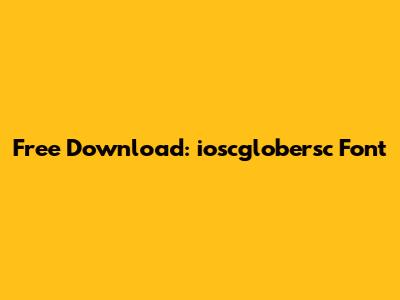
Free Download: Ioscglobersc Font
Hey guys! Today, we're diving into the awesome world of typography, specifically focusing on the ioscglobersc font free download. If you're on the hunt for a cool, modern typeface that can seriously amp up your designs, then you've come to the right place. This font is a real gem, offering a clean and versatile aesthetic that works across a multitude of projects. Whether you're designing a website, crafting a social media graphic, or even working on a print publication, having a reliable and stylish font like ioscglobersc in your toolkit is a game-changer. Let's get this party started and explore why this font is such a popular choice and how you can snag it for your next creative endeavor. We'll cover everything you need to know, from its design characteristics to where you can actually download it for free.
Why Choose ioscglobersc Font?
So, what makes the ioscglobersc font free download so special, you ask? Well, it all boils down to its fantastic design. This typeface strikes a perfect balance between geometric precision and a friendly, approachable feel. It's inspired by classic sans-serif fonts but brings its own unique flair to the table, making it feel fresh and contemporary. The characters are well-spaced, legible, and possess a certain elegance that can elevate any text. Think of it as the little black dress of fonts – it's versatile, always in style, and pairs well with pretty much anything. Its clean lines and open counters ensure readability even at smaller sizes, which is a huge plus for web design and mobile interfaces. Plus, the range of weights often available with this font family means you can create strong visual hierarchies, using different styles for headlines, subheadings, and body text. This consistency and flexibility are what make designers come back to it again and again. It’s not just about looking good; it’s about performing well across different media and ensuring your message comes across loud and clear.
Tips for Using ioscglobersc Effectively
Once you’ve got the ioscglobersc font free download sorted, the next step is to use it like a pro! How you implement this font can make all the difference. For web design, its clean and readable nature makes it perfect for body text, ensuring your visitors can easily consume your content. For headlines and titles, consider using a bolder weight of ioscglobersc to make them pop. The geometric construction of the font lends itself well to minimalist and modern designs. Pair it with simple color palettes and plenty of white space to let the typography shine. If you're designing logos, a carefully chosen weight of ioscglobersc can convey professionalism and clarity. Avoid using too many different weights or styles of the font within a single design; stick to two or three variations at most to maintain a cohesive look. Remember, less is often more when it comes to typography. Experiment with different sizes and letter spacing (kerning) to fine-tune the appearance. For print materials like flyers or posters, ioscglobersc can be a fantastic choice for its legibility and modern appeal. Just ensure you’re using high-resolution files when preparing your print designs. Always preview your text with the font applied before finalizing your project. This simple step can catch subtle issues and ensure the overall aesthetic is exactly what you envisioned. Guys, don't be afraid to play around with it – that's how you discover its full potential!
Alternatives and Similar Fonts
While the ioscglobersc font free download is fantastic, it's always good to have a few backup options or similar fonts in your arsenal. Sometimes, you might need a font with a slightly different character, or perhaps you want to see how ioscglobersc stacks up against its peers. If you love the clean, geometric sans-serif vibe of ioscglobersc, you might also want to check out fonts like Montserrat, Lato, Open Sans, or Raleway. These are all popular, highly versatile, and often available for free on platforms like Google Fonts. Montserrat, for instance, shares a similar geometric construction and comes in a wide range of weights, making it incredibly flexible. Lato is known for its warm and friendly feel despite its structural clarity. Open Sans is a workhorse font, optimized for web and print, offering excellent readability. Raleway has a bit more of an elegant touch with unique character details, especially in its lighter weights. Exploring these alternatives can help you broaden your typographic horizons and find the perfect fit for every project. Each font has its own subtle personality, and understanding these nuances will make you a more adaptable and resourceful designer. Remember to check the specific licenses for each font, as they can vary.
To wrap things up, the ioscglobersc font free download is a stellar choice for designers looking for a modern, versatile, and highly readable typeface. Its clean geometric design, coupled with its flexibility across various applications, makes it a go-to option for many creative projects. Whether you're working on a website, branding, or any visual communication, this font can add a professional and stylish touch. We've covered why it's a great font, where you can typically find it for free, and some essential tips for using it effectively. Plus, we’ve even touched upon some excellent alternative fonts you might want to explore. So go ahead, download ioscglobersc, experiment with it, and let your creativity flow! Remember to always be mindful of font licensing and download from reputable sources. Happy designing, everyone!